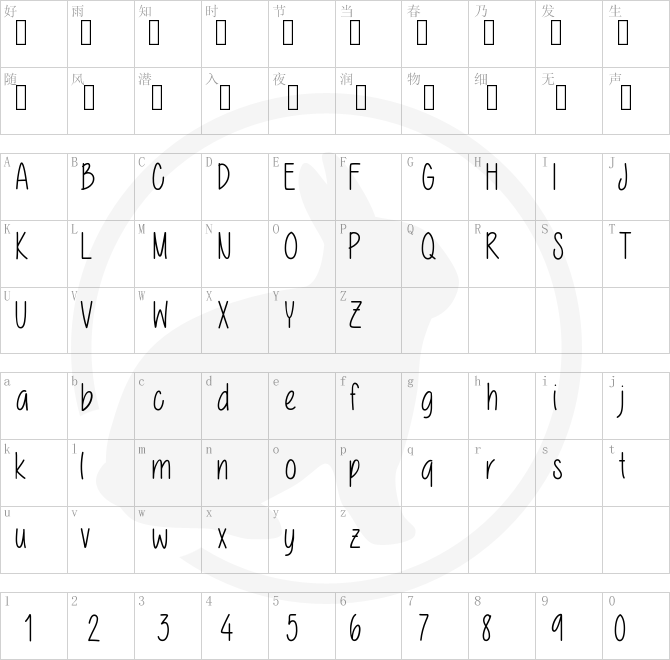
- Font Name:Macilynn Marie
Macilynn-Marie.ttf is a very beautiful artistic font, Macilynn-Marie.ttf is widely used in the design and printing of various books and pictures,Macilynn-Marie.ttf has a strong visual impact,Macilynn-Marie.ttf is a commonly used font in newspapers, magazines and books, and is used in posters, e-commerce Poster design, store design, logo design, font design and other fields.Macilynn-Marie.